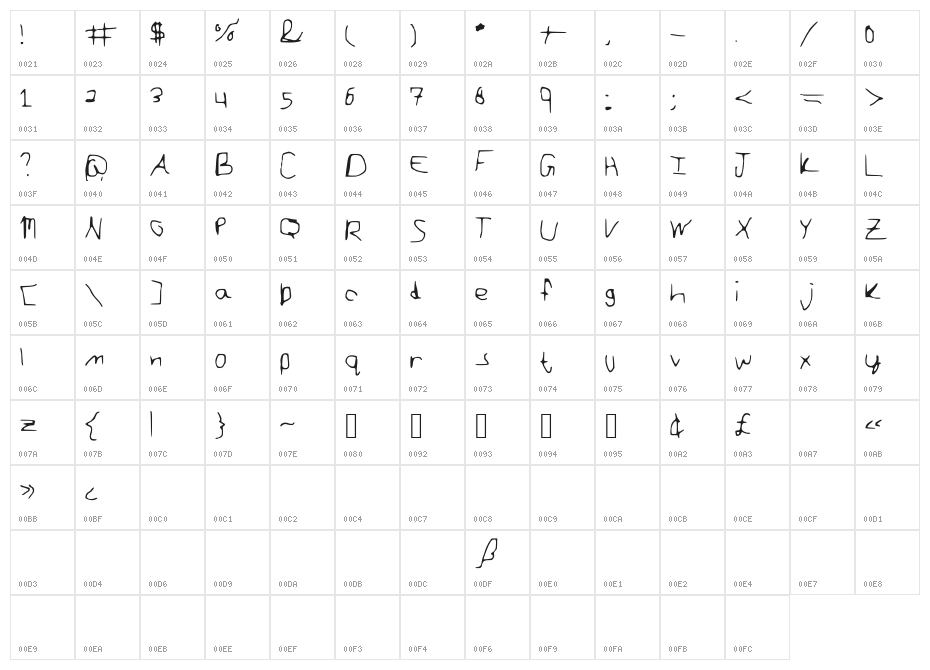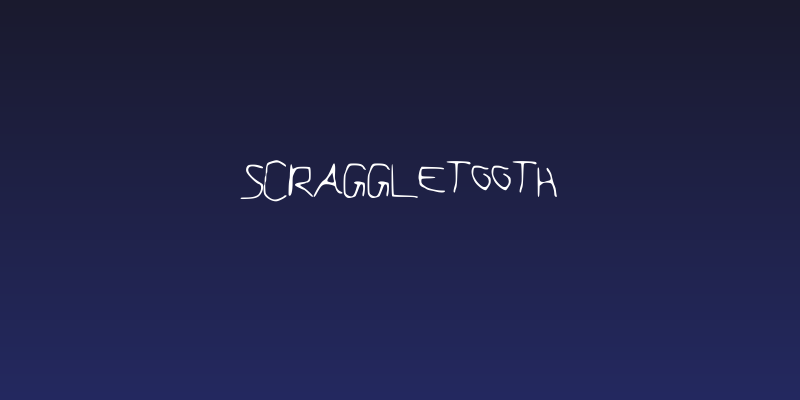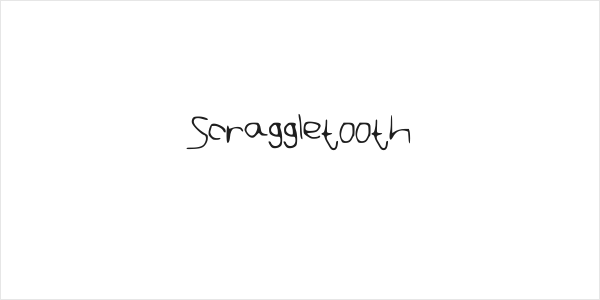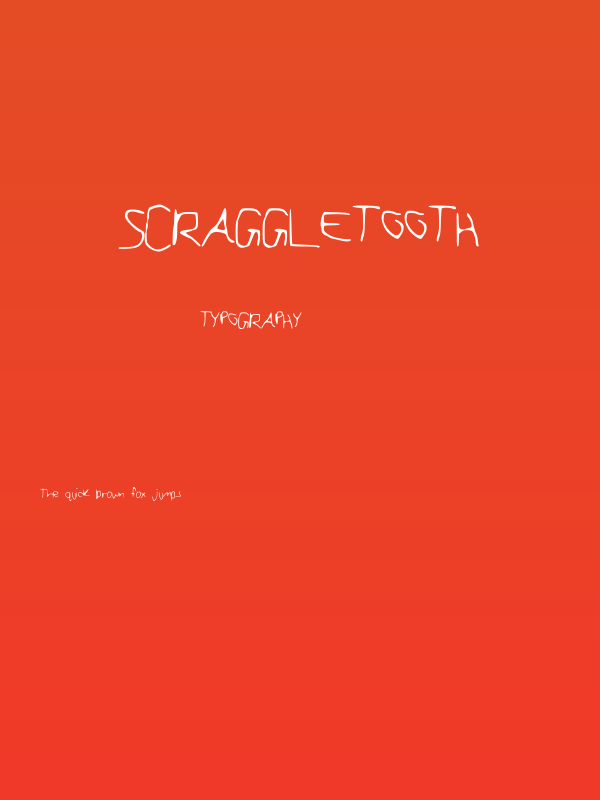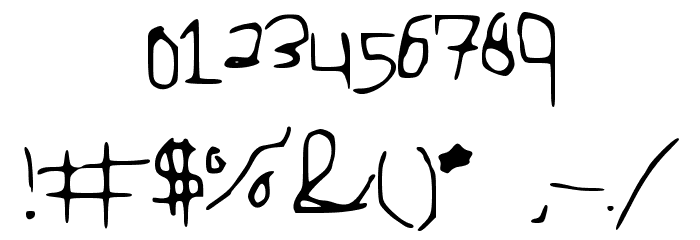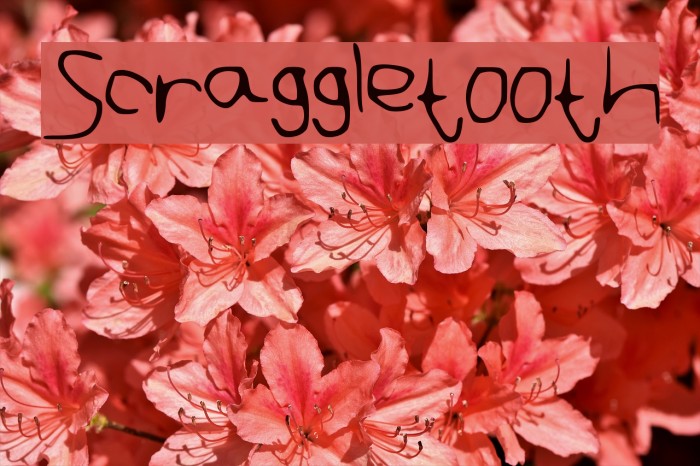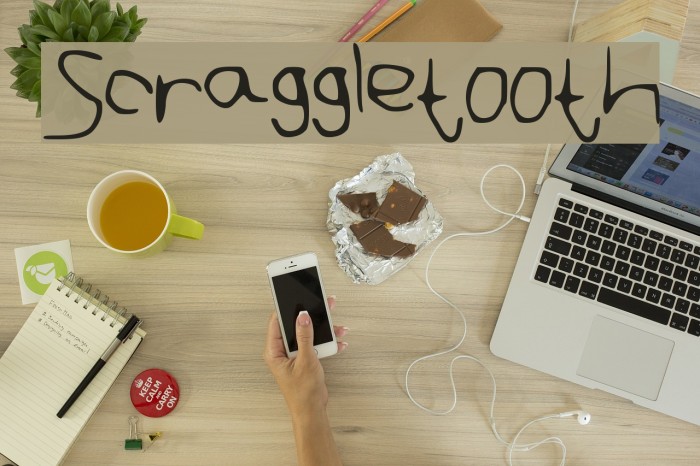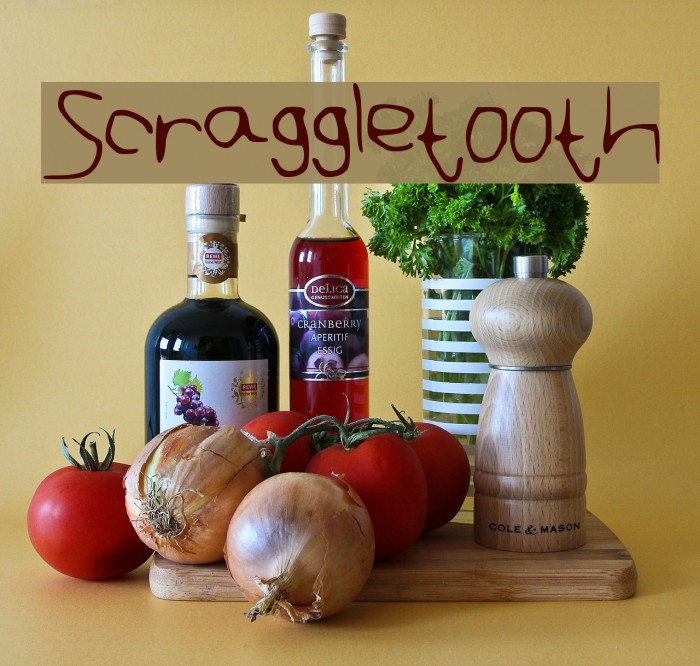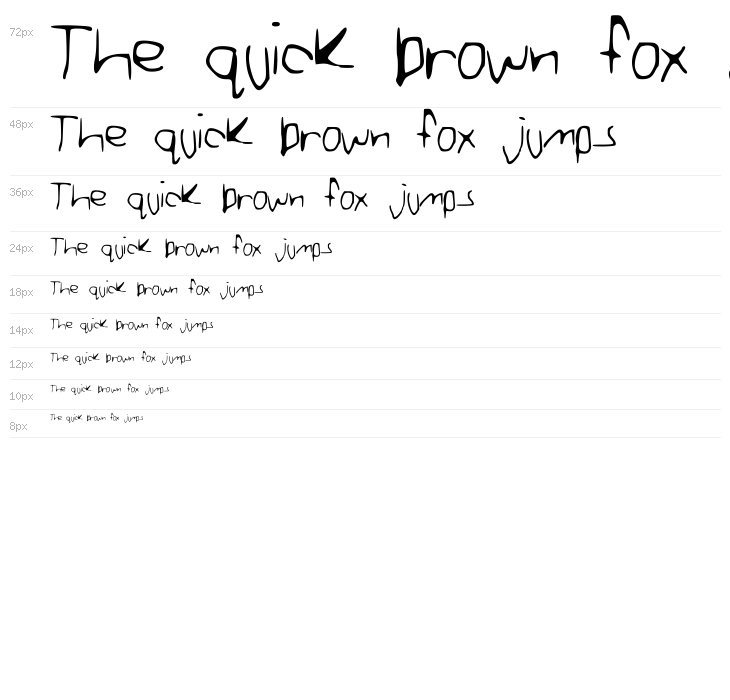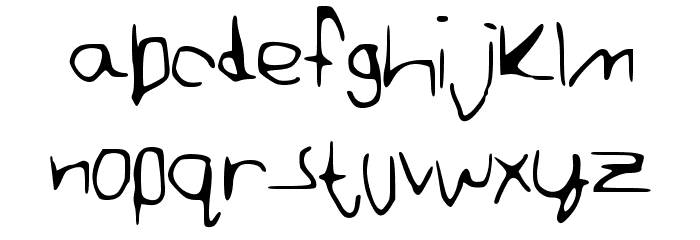
Scraggletooth Font
Scraggletooth Description
This font exhibits a playful and quirky handwritten style, characterized by its uneven strokes and irregular shapes. The letters have a casual, almost doodle-like appearance, with varying line thickness that adds a dynamic and spontaneous feel. The uppercase and lowercase letters maintain a consistent style, with some letters featuring exaggerated curves and angles. Numbers and special characters follow the same whimsical design, making the font suitable for creative and informal projects. Its unique charm lies in its imperfect and organic look, which can add a personal touch to any design.
| Use Case | Headlines, Creative projects, Informal text |
| Proposed Projects | Ideal for children's books, greeting cards, creative posters, and informal branding. |